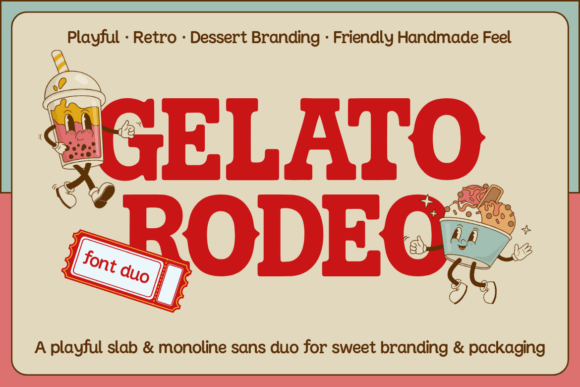
The Sweetest Design Duo: Gelato Rodeo Font
Do you remember the excitement of strolling through a colorful dessert parlor, surrounded by vibrant colors and whimsical signs? For designers, those moments of inspiration can be a treasure trove of creative ideas. One such moment sparked the creation of the Gelato Rodeo Font, a dynamic duo of animated fonts that embodies the joy and playfulness of a classic ice cream parlor.
The Gelato Rodeo Font is a carefully crafted pair of fonts designed to bring a sense of wonder and excitement to your designs. This delightful combination of a slab serif display and a monoline sans-serif font is perfect for adding a touch of whimsy to your branding, packaging, and advertising materials. With its unique triangle-shaped serifs and quirky proportions, the Gelato Rodeo Font is a valuable addition to any designer’s toolkit, guaranteed to add a burst of visual delight to any project.
Gelato Rodeo Font Key Features
- Font Family: Gelato Rodeo, with 6 styles (Regular, Italic, Bold, Bold Italic, Outline, Shadow)
- Unique Characteristics: Gelato Rodeo features a unique blend of western and modern elements, with a bold and playful feel, perfect for creating eye-catching designs
Gelato Rodeo Font Review
As a designer, I was excited to dive into the world of Gelato Rodeo Font. At first glance, it’s a playful and whimsical font that immediately caught my attention. Here are some things that really stand out:
- ✨ Unique character: The Gelato Rodeo Font has a distinct western-inspired feel that adds a fun touch to any design. It’s perfect for projects that need a bit of personality.
- ✨ Customizability: The font is highly customizable, with a wide range of weights and styles to choose from. This makes it incredibly versatile and suitable for a variety of design needs.
- ⚠️ Limited language support: Unfortunately, the Gelato Rodeo Font only supports Latin-based languages, which may limit its use for designs that require other languages.
- ⚠️ May not be suitable for formal designs: Due to its playful nature, the Gelato Rodeo Font may not be the best choice for formal or professional designs.
Overall, I think Gelato Rodeo Font is a great addition to any designer’s toolkit. While it has its limitations, its unique character and customizability make it a great choice for projects that need a bit of personality. With some careful consideration, it can be a fantastic tool for creating eye-catching designs.
For optimal results, pair Gelato Rodeo Font with bold, eye-catching graphics and contrasting colors. Experiment with different font sizes and styles to create visual interest.
Gelato Rodeo Font is ideal for creative, playful designs such as social media posts, flyers, posters, and brand identities. Its unique style makes it perfect for food-related businesses, events, or promotions.
Ice Creamery Font is a playful, cursive font that is ideal for creating a fun and whimsical atmosphere. It has a more casual and laid-back feel compared to Gelato Rodeo Font, making it perfect for ice cream shops, cafes, and other casual eateries.